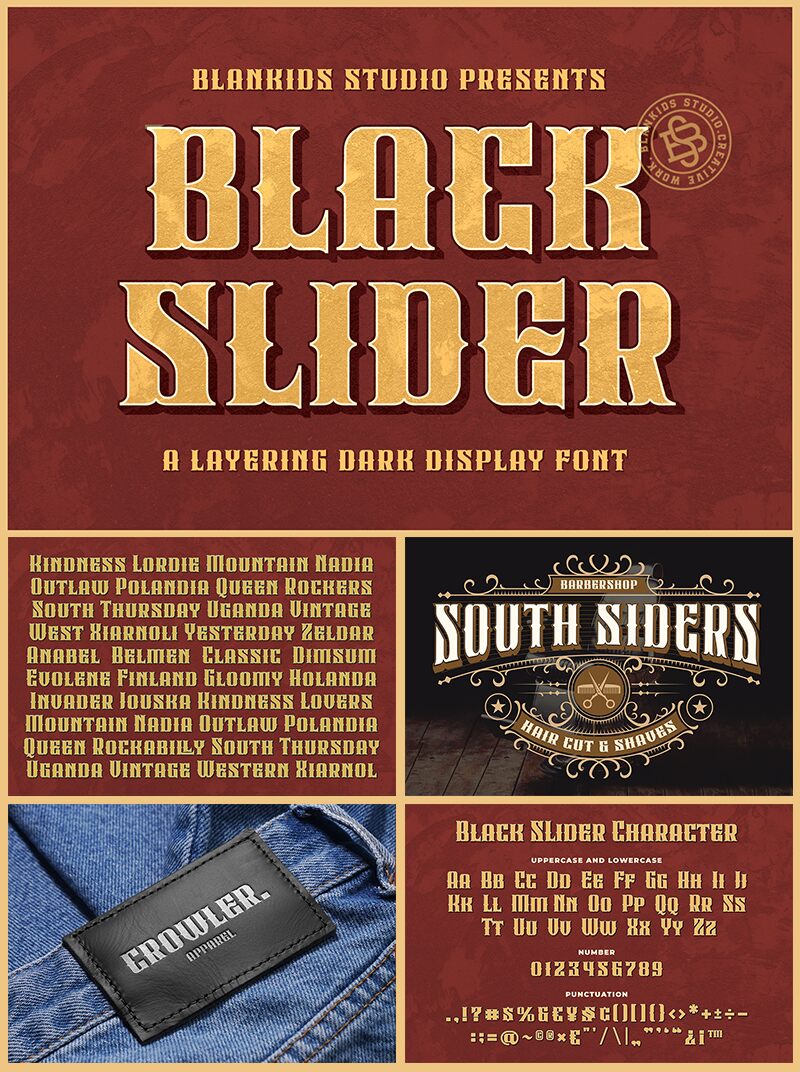
Black Slider Regular
Black Slider font, designed by Blankids, is a bold and condensed display font in a western style. It exhibits gothic influences with abundant ornamental details that give it a medieval look and feel. The letters are vivid with their decorative details and enclose an overwhelming historic feel which communicates power.
Black Slider by Blankids Studio